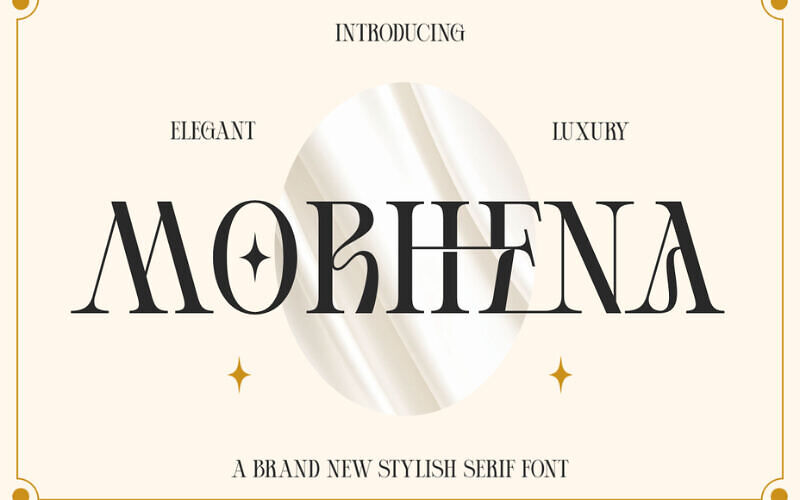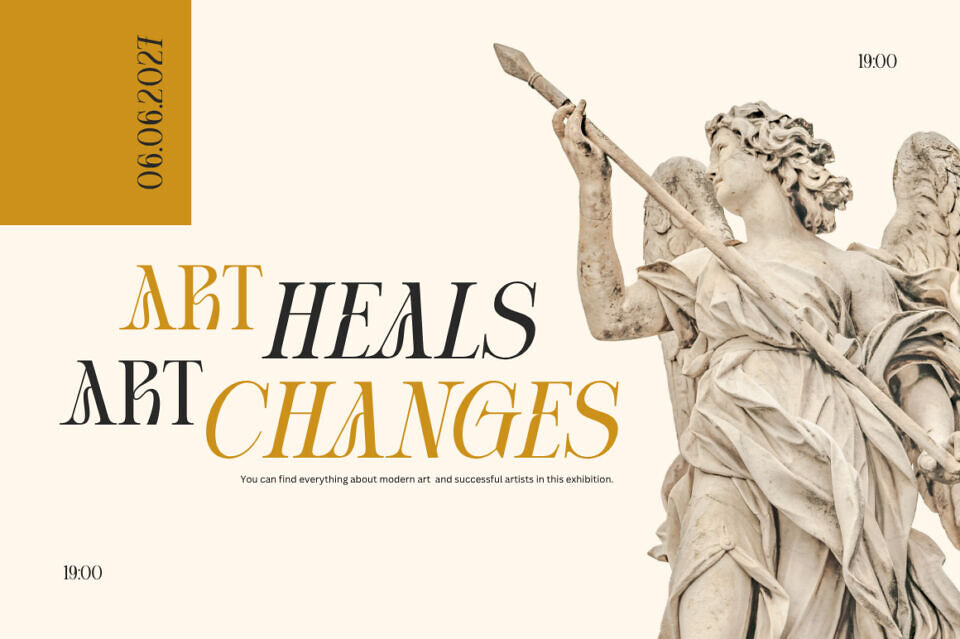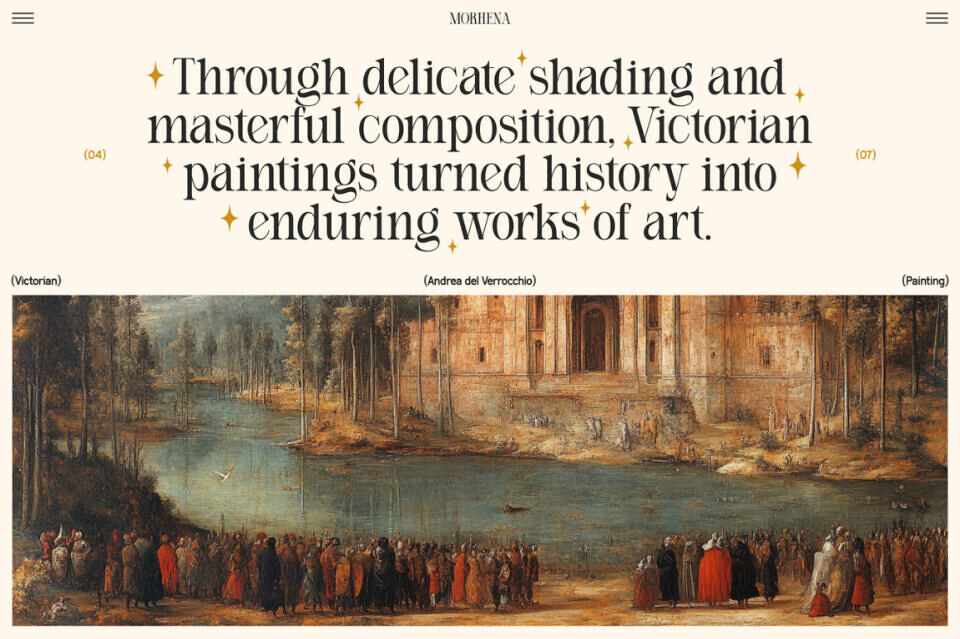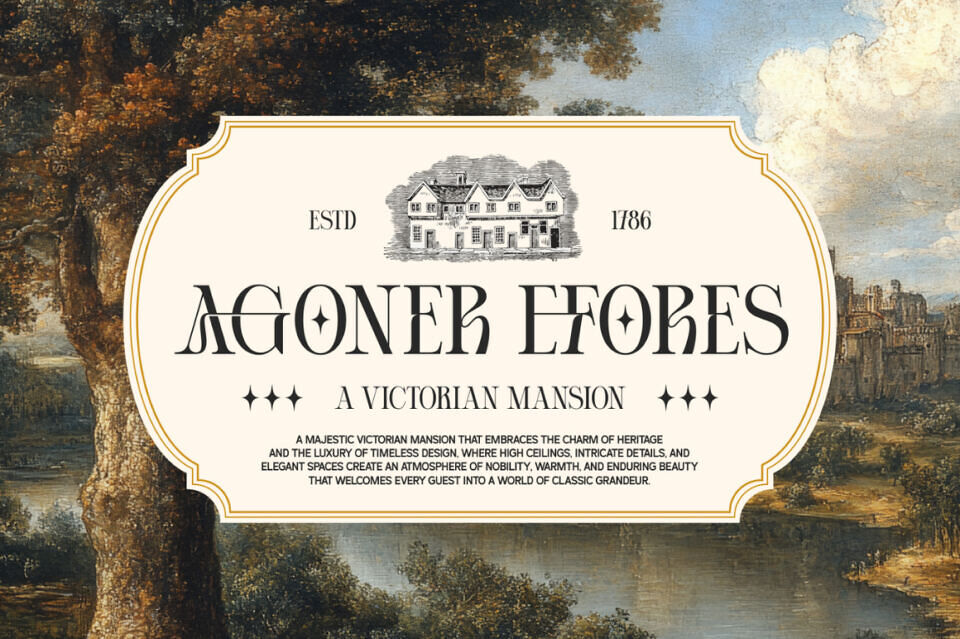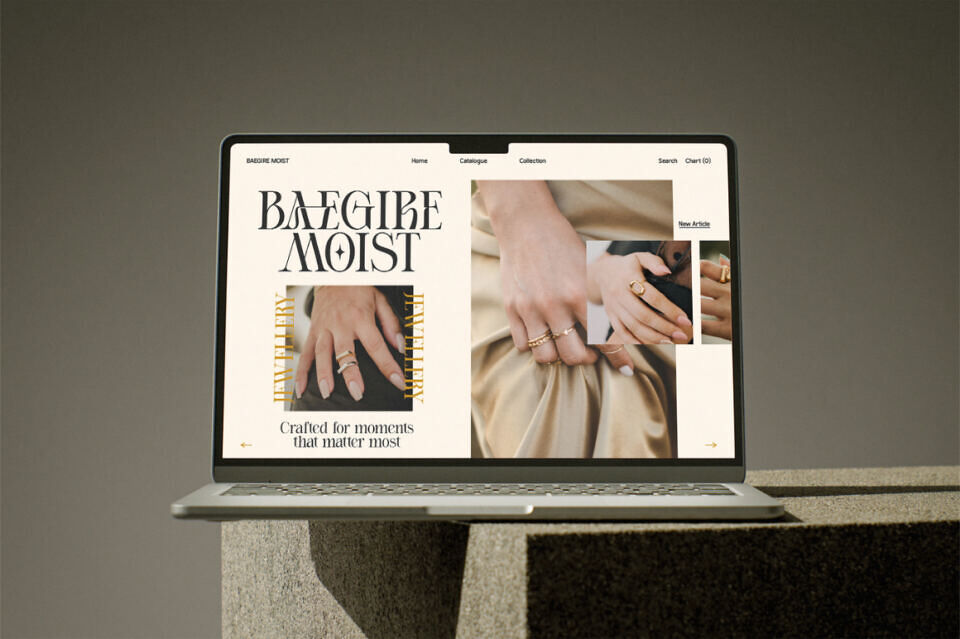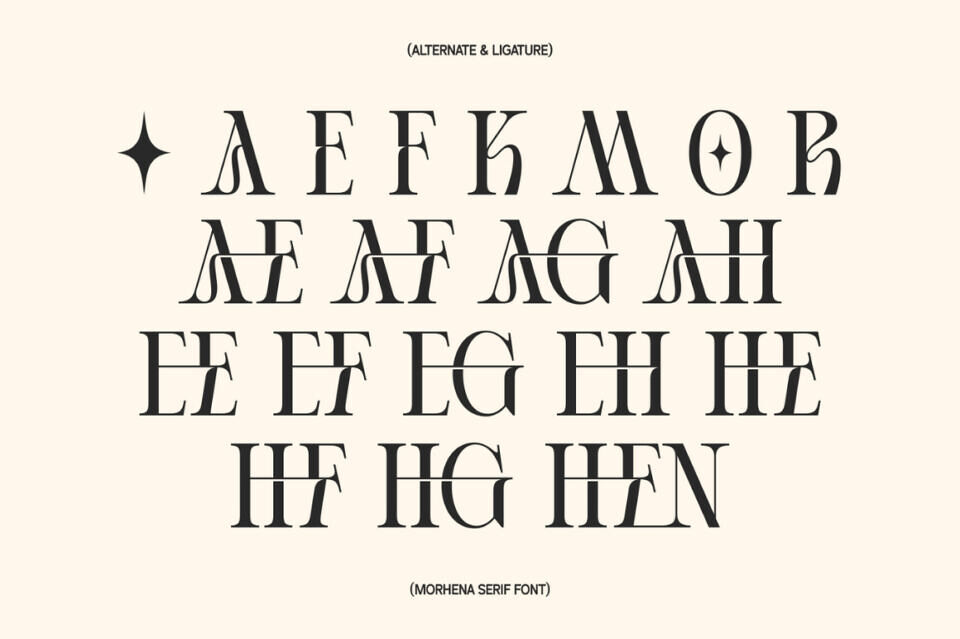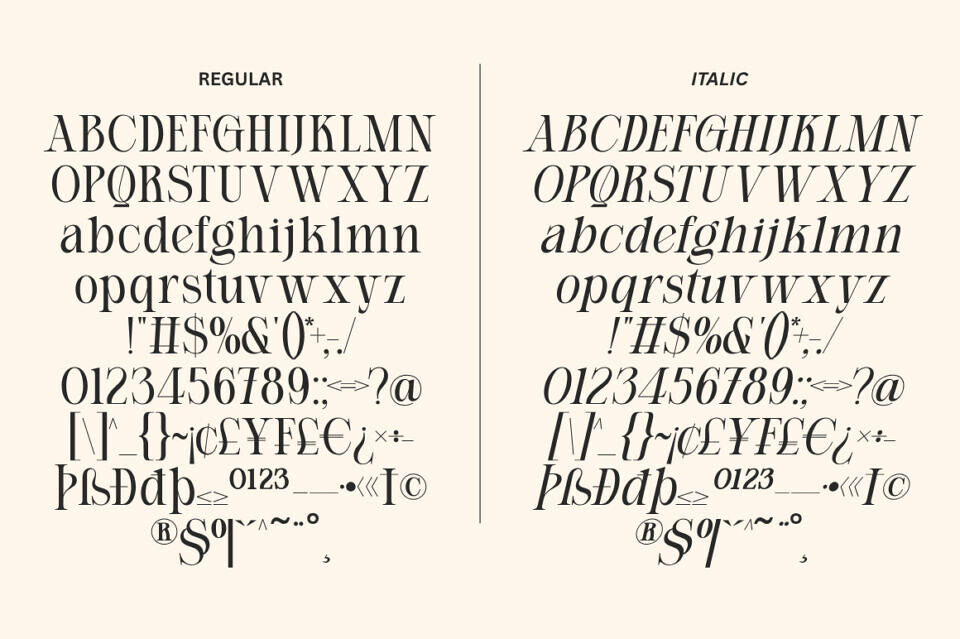
Morhena Font
Morhena is a luxury serif font crafted to express elegance, prestige, and timeless sophistication. With its refined letterforms, graceful curves, and high-contrast details, this font is perfect for premium branding, fashion editorials, wedding designs, logos, packaging, and upscale marketing materials.
Morhena brings a polished and exclusive feel to every design, making your typography look effortlessly luxurious.